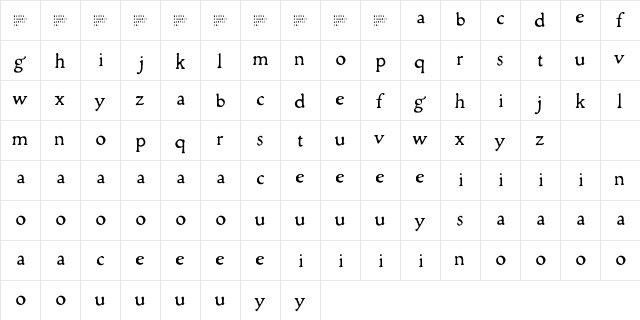
Alchemion Demo Regular
| Foundry | Nomad Visuals Co. |
| Designer | Nomad Visuals Co. |
Design Context for Alchemion Demo Typeface
Alchemion Demo takes a measured approach to typography — its balanced proportions and neutral character make it a reliable workhorse for both digital and print work.